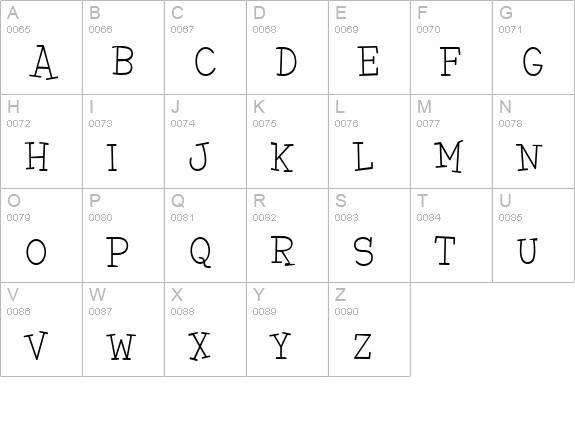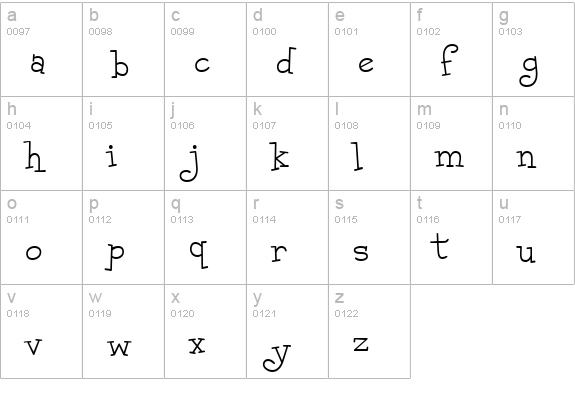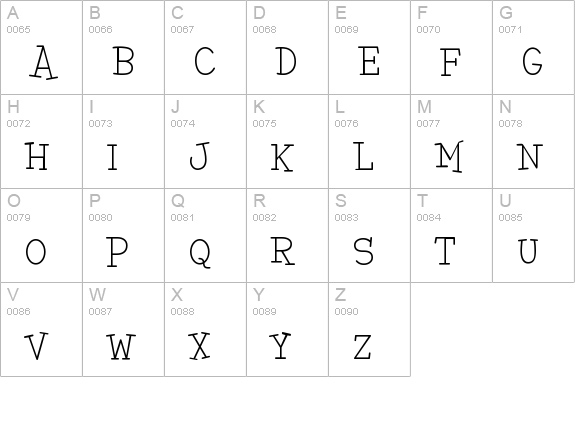
Malihini Tahitian BTN Lt is a captivating font that exudes elegance and sophistication. Its delicate curves and slender letterforms make it the perfect choice for projects that require a touch of gracefulness. Whether you're designing invitations, creating branding materials, or crafting eye-catching headlines, this font will effortlessly elevate your designs to new heights. The light weight of Malihini Tahitian BTN Lt adds a sense of airiness and delicacy to any composition. Its subtle strokes and graceful proportions make it a versatile typeface that can be used for both display and body text. The soft, rounded edges of each letter create a pleasant reading experience and ensure maximum legibility. One of the best features of Malihini Tahitian BTN Lt is that it is freely available to download at FontsMarket.com. This means that you can easily access this stunning font without any cost. Whether you're a professional designer or a hobbyist, having access to high-quality fonts for free can be incredibly valuable. So why wait? Download Malihini Tahitian BTN Lt today and add a touch of elegance to your designs. With its timeless appeal and captivating aesthetics, this font is sure to make a lasting impression. Don't miss out on the opportunity to elevate your creative projects with this stunning typeface.